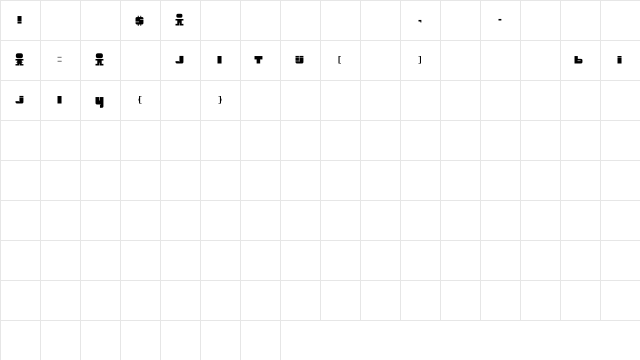
Blockster original
| Foundry | Typoware |
| Designer | Jordie van Rijn |
Design Context for Blockster Typeface
Blockster is a composed and adaptable typeface that performs quietly and consistently across a wide range of design contexts.